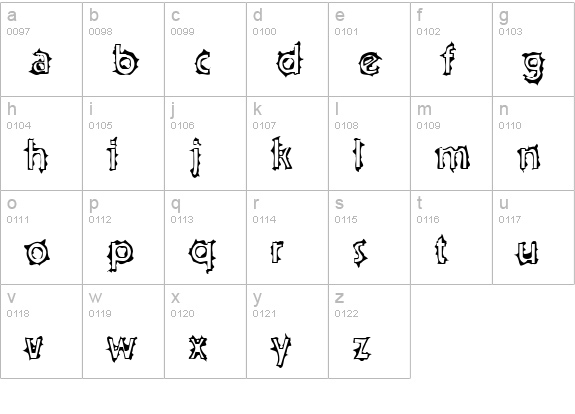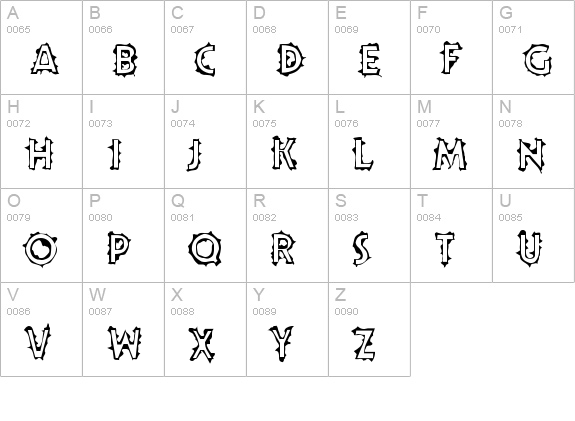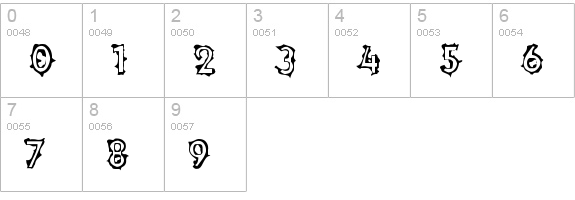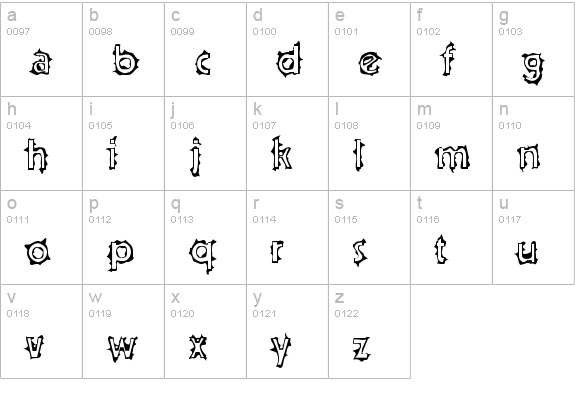
Teenick Font Details
Introducing Teenick, a vibrant and playful font that captures the essence of youth and exudes creativity. With its bold and energetic letterforms, Teenick is the perfect choice for any design project that aims to communicate a sense of fun and excitement. This font is not only visually appealing but also incredibly versatile. Whether you're designing a poster, creating a logo, or crafting a social media graphic, Teenick will add a touch of youthful charm and captivate your audience. One of the best things about Teenick is that it is completely free! That's right, this amazing font is freely available to download at FontsMarket.com. Now you can bring your designs to life without breaking the bank. This accessibility makes Teenick an excellent choice for students, young professionals, and anyone looking to add a touch of youthful energy to their projects. But don't let its playful appearance fool you - Teenick is a highly legible font that ensures your message is easily read and understood. The carefully crafted letterforms and balanced proportions make it a joy to work with, whether in large headlines or small body text. So why wait? Download Teenick today from FontsMarket.com and let your creativity soar. With this free font at your fingertips, you'll have the power to create stunning designs that leave a lasting impression. Embrace the energy of youth and unlock a world of possibilities with Teenick.